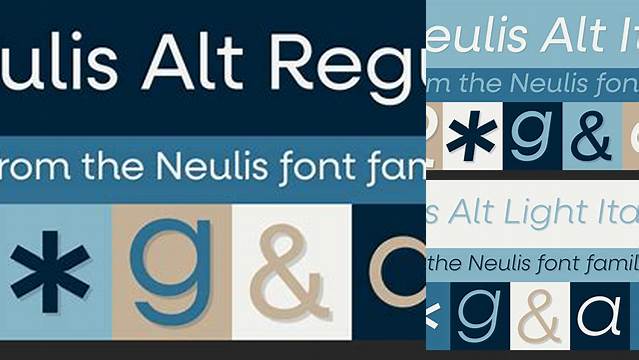
Hey guys! Are you on the hunt for a sleek, modern font to elevate your design projects? Look no further! In this article, we're diving deep into the world of Neulis Alt Regular, a font that's been making waves in the design community. We'll explore what makes it so special, where you can snag it for free, and how to make the most of it in your creative endeavors. So, buckle up and let's get started!
What Makes Neulis Alt Regular So Special?
Neulis Alt Regular isn't just another font; it's a carefully crafted typeface that blends elegance with simplicity. Its clean lines and balanced proportions make it incredibly versatile, suitable for a wide range of applications. Think logos, headlines, body text, website designs, and even print materials – Neulis Alt Regular handles it all with grace. One of the key aspects that sets Neulis Alt Regular apart is its readability. The letterforms are designed with clarity in mind, ensuring that your message comes across loud and clear, no matter the size or medium. This is crucial for maintaining audience engagement and ensuring your designs are accessible. The font exudes a contemporary feel, making it perfect for projects that aim to convey a sense of modernity and sophistication. It’s not overly stylized, which means it won’t distract from your content but instead, will enhance it. This makes it a fantastic choice for branding, where consistency and clarity are paramount. Furthermore, Neulis Alt Regular boasts excellent kerning and spacing. This technical detail is often overlooked, but it significantly impacts the overall visual appeal of your text. Proper kerning ensures that the spaces between letters are balanced, resulting in a polished and professional look. The versatility of Neulis Alt Regular also extends to its compatibility. It works seamlessly across various platforms and software, whether you're using Adobe Creative Suite, Microsoft Office, or web design tools. This flexibility is a huge plus, saving you from potential headaches and ensuring a smooth workflow. Neulis Alt Regular is a font that understands the nuances of design. Its subtle character variations add a touch of personality without being overwhelming. This makes it a great choice for projects that require a font with character but still need to maintain a professional and clean aesthetic. For designers who appreciate the finer details, Neulis Alt Regular is a treasure. It’s a font that has been designed with thought and care, evident in every glyph and curve. It’s this attention to detail that makes it a standout choice for any project where typography plays a critical role.
Unleash Your Creativity: How to Use Neulis Alt Regular
Now that you've got Neulis Alt Regular in your font arsenal, it's time to put it to work! This font is a true chameleon, adapting beautifully to a wide range of design styles and projects. But how do you make the most of it? Let's explore some creative ways to incorporate Neulis Alt Regular into your designs and really make them shine. First off, think about the overall tone and message of your project. Neulis Alt Regular's clean and modern aesthetic makes it a fantastic choice for projects that need to convey a sense of professionalism, clarity, and sophistication. This could include anything from corporate branding and website design to marketing materials and presentations. For logos, Neulis Alt Regular can provide a strong and memorable visual identity. Its readability ensures that your brand name is clear and easily recognizable, while its subtle elegance adds a touch of class. Try using it in conjunction with a bolder font for a striking contrast, or let it stand alone for a minimalist and modern look. When it comes to website design, typography is key. Neulis Alt Regular works wonders for both headlines and body text, creating a cohesive and visually appealing experience for your visitors. Its excellent legibility ensures that your content is easy to read, encouraging visitors to stay longer and engage with your site. In print materials, such as brochures, flyers, and business cards, Neulis Alt Regular can help you create a polished and professional impression. Its clean lines and balanced proportions make it ideal for conveying information in a clear and concise manner. Consider using it for headings, subheadings, and body text to maintain a consistent and visually appealing layout. Don't be afraid to experiment with different weights and styles of Neulis Alt Regular. Using different variations of the font can add depth and visual interest to your designs, while still maintaining a cohesive look. For example, you could use a bold weight for headings and a regular weight for body text. Another tip is to pay attention to the spacing and kerning of your text. Adjusting these settings can significantly impact the readability and overall appearance of your typography. Neulis Alt Regular has been designed with excellent kerning in mind, but it's always a good idea to fine-tune it to suit your specific needs. Finally, remember that typography is just one element of your design. Consider how Neulis Alt Regular works in conjunction with other design elements, such as colors, images, and layout. By carefully coordinating these elements, you can create designs that are both visually stunning and highly effective.
Neulis Alt Regular: A Font for Every Designer
So there you have it, folks! Neulis Alt Regular is a fantastic font that deserves a spot in every designer's toolkit. Its versatility, readability, and modern aesthetic make it a go-to choice for a wide range of projects. And the best part? You can grab it for free! By understanding its strengths and how to use it effectively, you can elevate your designs and create visuals that truly stand out. Whether you're working on a branding project, designing a website, or creating marketing materials, Neulis Alt Regular is a font that you can rely on. Its clean lines and balanced proportions ensure that your message is conveyed with clarity and style. Plus, its compatibility across various platforms and software makes it a breeze to work with. But the true beauty of Neulis Alt Regular lies in its ability to adapt to different design styles. It can be sleek and minimalist, bold and impactful, or elegant and sophisticated – the possibilities are endless! This versatility makes it a valuable asset for any designer, regardless of their skill level or design preferences. Remember, typography is a crucial element of design. The fonts you choose can significantly impact the overall look and feel of your projects. By selecting a font like Neulis Alt Regular, you're making a statement about your attention to detail and your commitment to quality. So, go ahead and experiment with Neulis Alt Regular in your next project. Unleash your creativity and see how this fantastic font can transform your designs. And don't forget to share your creations with the design community – we'd love to see what you come up with! Happy designing, guys! I hope this article helps you guys out.